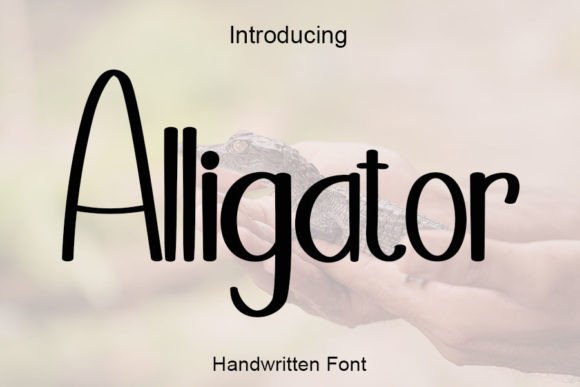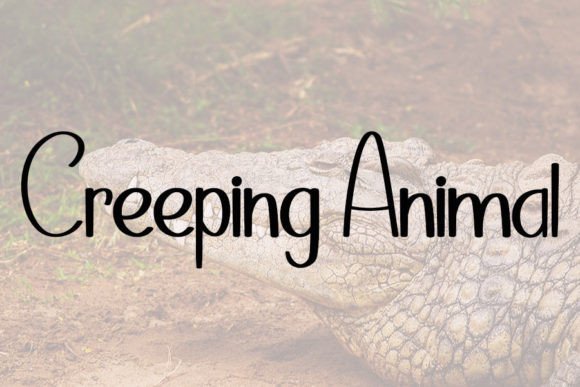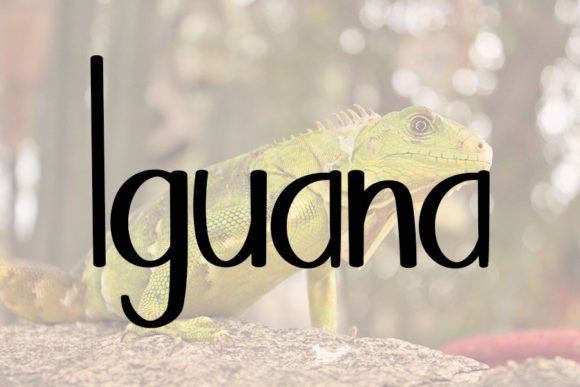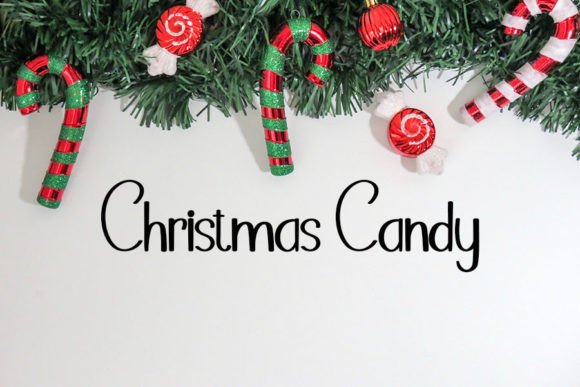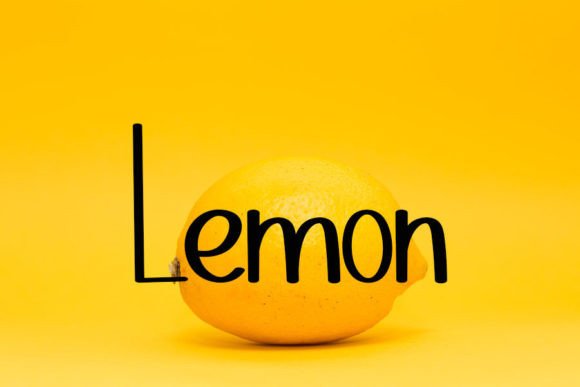
About Alligator Font
Alligator is a neat and beautiful handwritten font described by an elegant touch, perfect for your favorite projects. Fall in love with its incredibly distinct and timeless style, and use it to create spectacular designs!